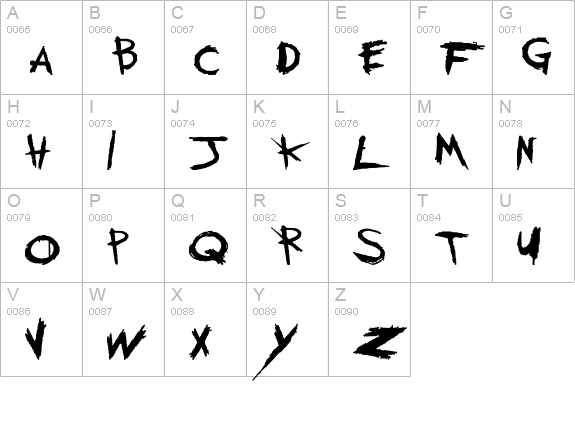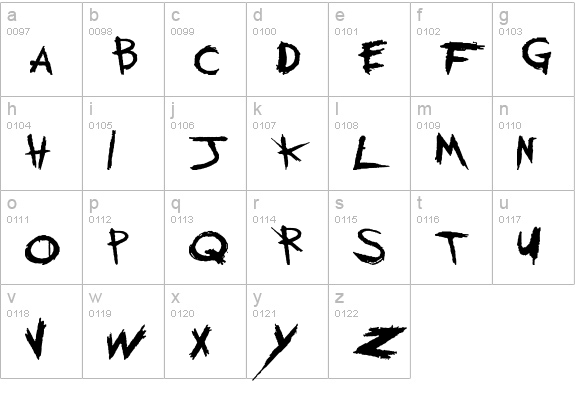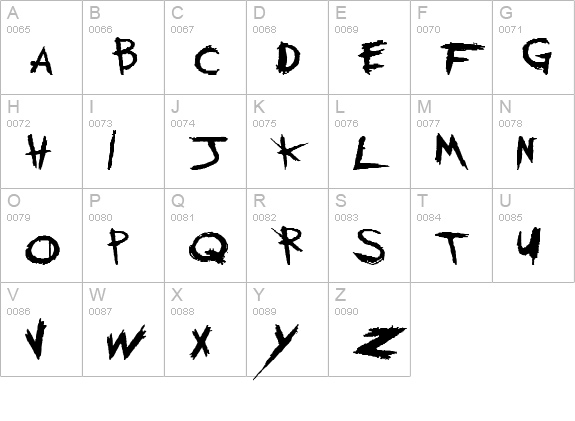
My Chemical Romance Font Details
Introducing the captivating and edgy My Chemical Romance font, a bold and dynamic typeface that perfectly captures the essence of this iconic rock band. With its sharp angles, unique letterforms, and rebellious energy, this font is a must-have for any fan or designer looking to bring a touch of rock and roll into their projects. Designed with meticulous attention to detail, the My Chemical Romance font exudes a sense of raw power and emotion. Its bold strokes and exaggerated curves make a statement, commanding attention and creating a strong visual impact. Whether you're designing album covers, posters, or merchandise, this font will effortlessly convey the spirit of My Chemical Romance. One of the best features of the My Chemical Romance font is that it is freely available to download at FontsMarket.com. This means that you can easily access this powerful and evocative typeface without any hassle. The team at FontsMarket.com understands the importance of accessibility and believes that creativity should never be limited by financial constraints. That's why they have made the My Chemical Romance font freely available, allowing everyone to bring a touch of rock-inspired style to their designs. So, whether you're a die-hard fan of My Chemical Romance or simply appreciate the bold and rebellious aesthetics of this iconic band, the My Chemical Romance font is a must-have addition to your design arsenal. Download it for free today at FontsMarket.com and unleash your creativity with this captivating typeface. Let the power of My Chemical Romance fuel your designs and make a lasting impression.